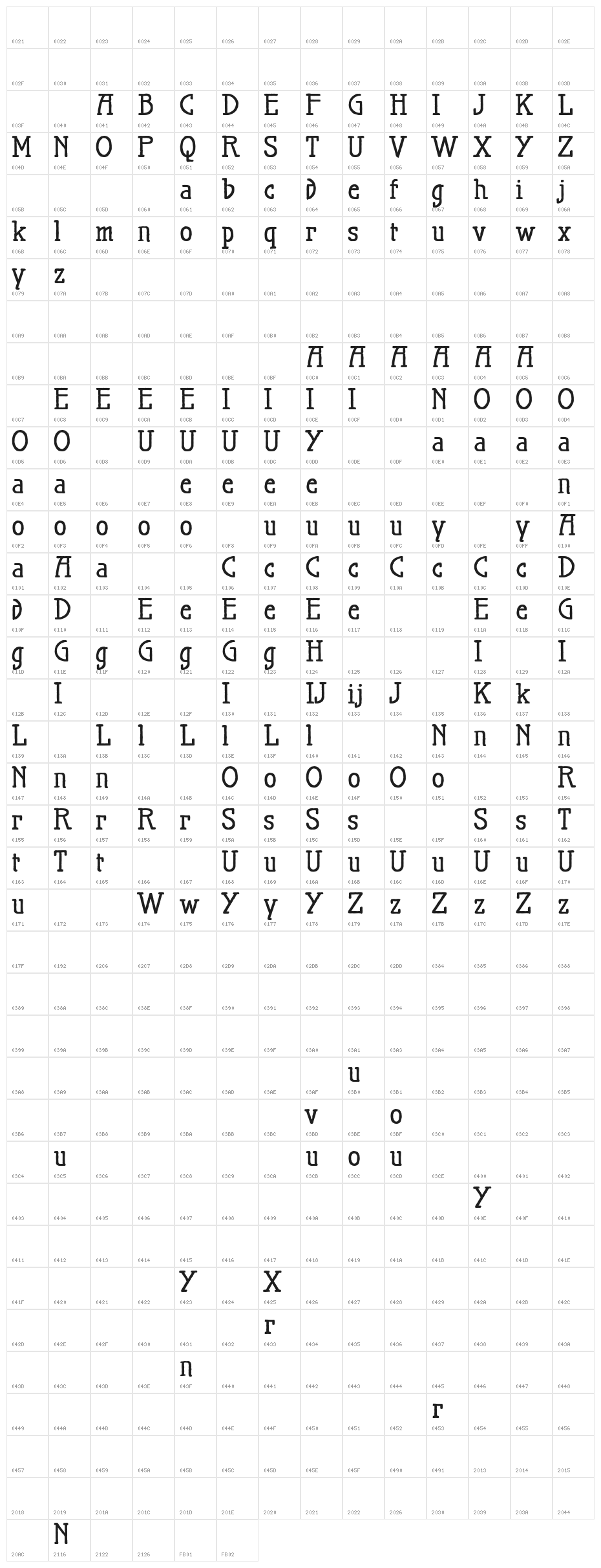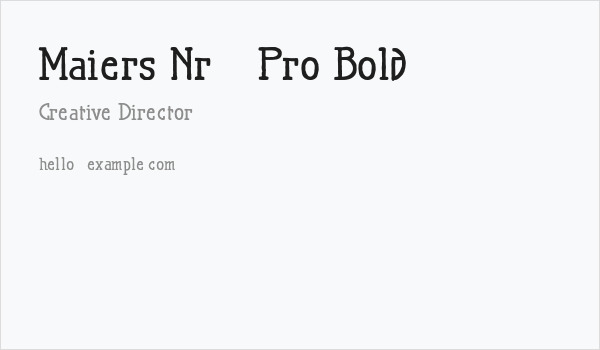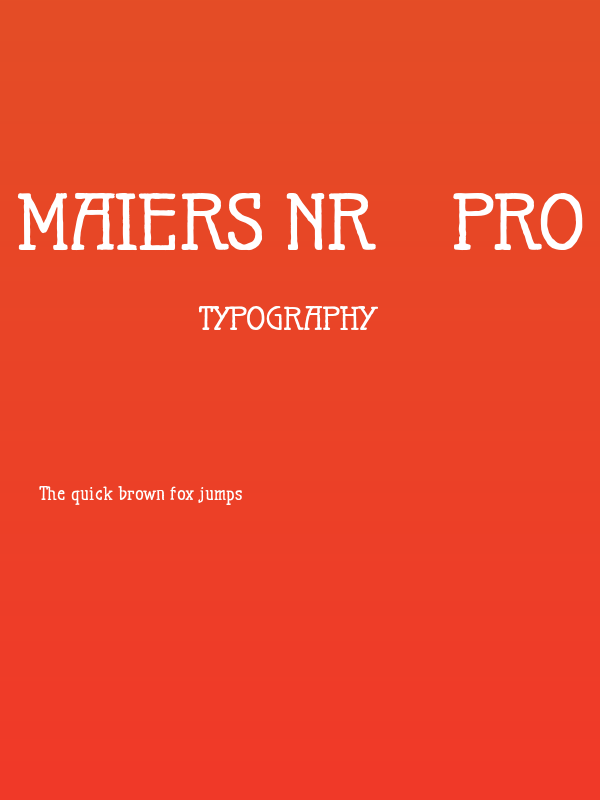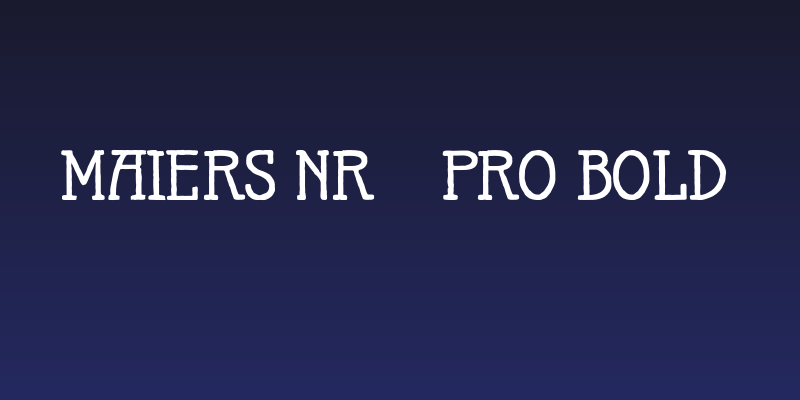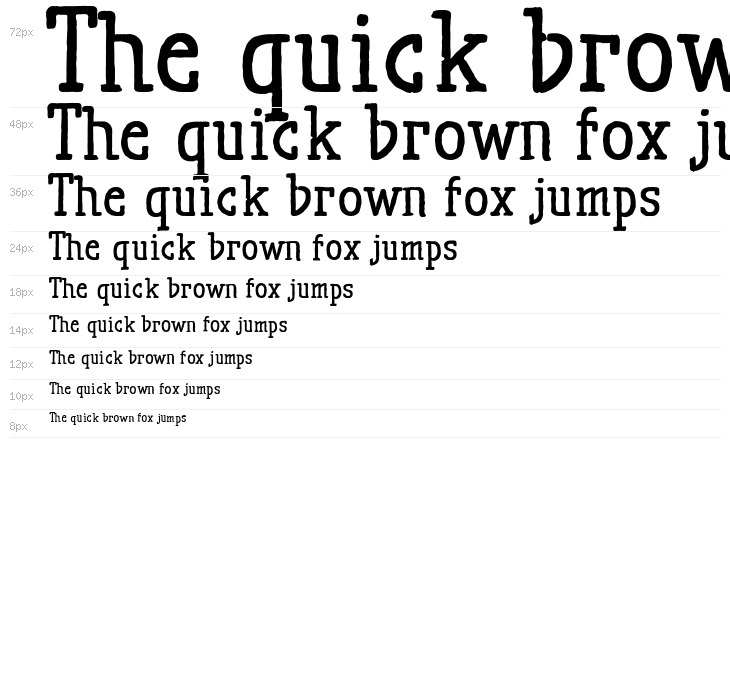
Maiers Nr21 Pro Bold Font
Maiers Nr21 Pro Bold Description
This font features a bold and distinctive style with a strong presence. The characters are designed with a unique blend of traditional and modern elements, creating a visually striking appearance. The uppercase letters exhibit a robust structure, while the lowercase letters maintain a consistent flow with slightly curved edges. The numerals are clear and legible, complementing the overall design. Special characters are crafted with attention to detail, enhancing the font's versatility. The bold weight and decorative style make it suitable for various creative projects.